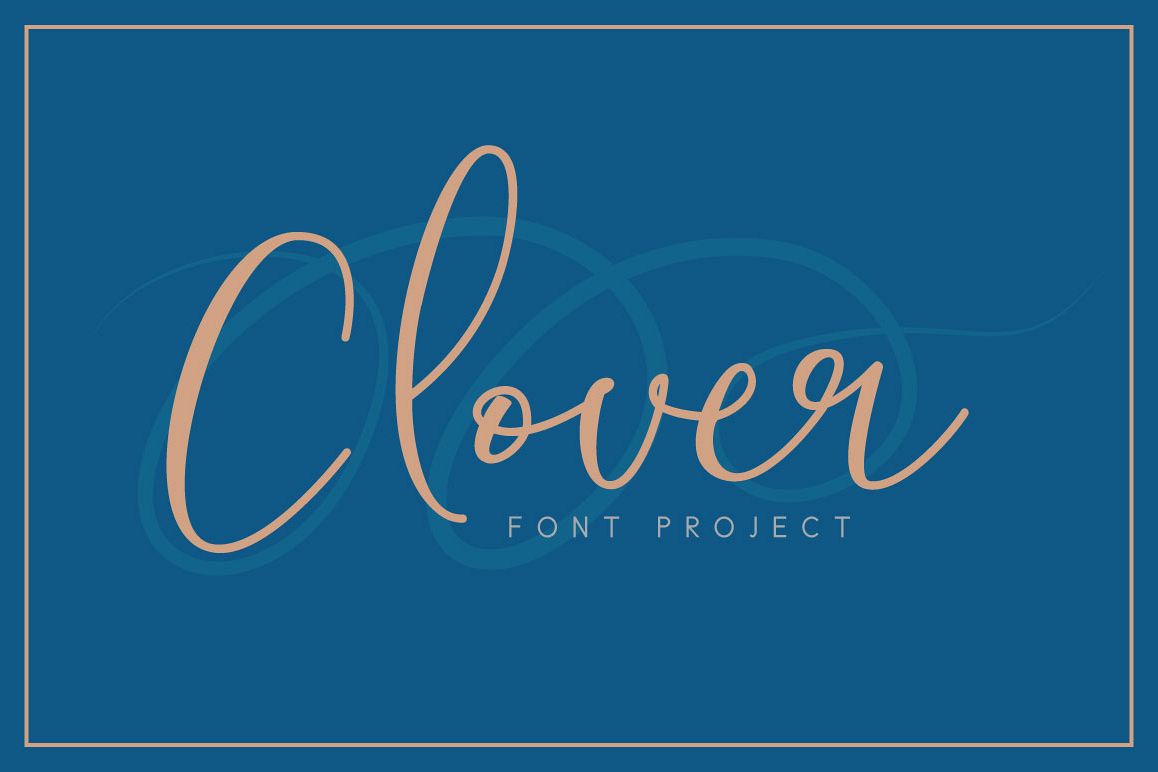
Clover Typeface
Presenting Clover Typeface, a charming and glory script font which is casual and sensibly designed to create your text looks striking. A trend-setter script style typeface will craft an immaculate look for many different projects such as quotes, blog header, poster, wedding, branding, logo, fashion, apparel, letter, invitation, stationery, etc.
· Uppercase & lowercase
· Punctuation & numerals
· Ligatures